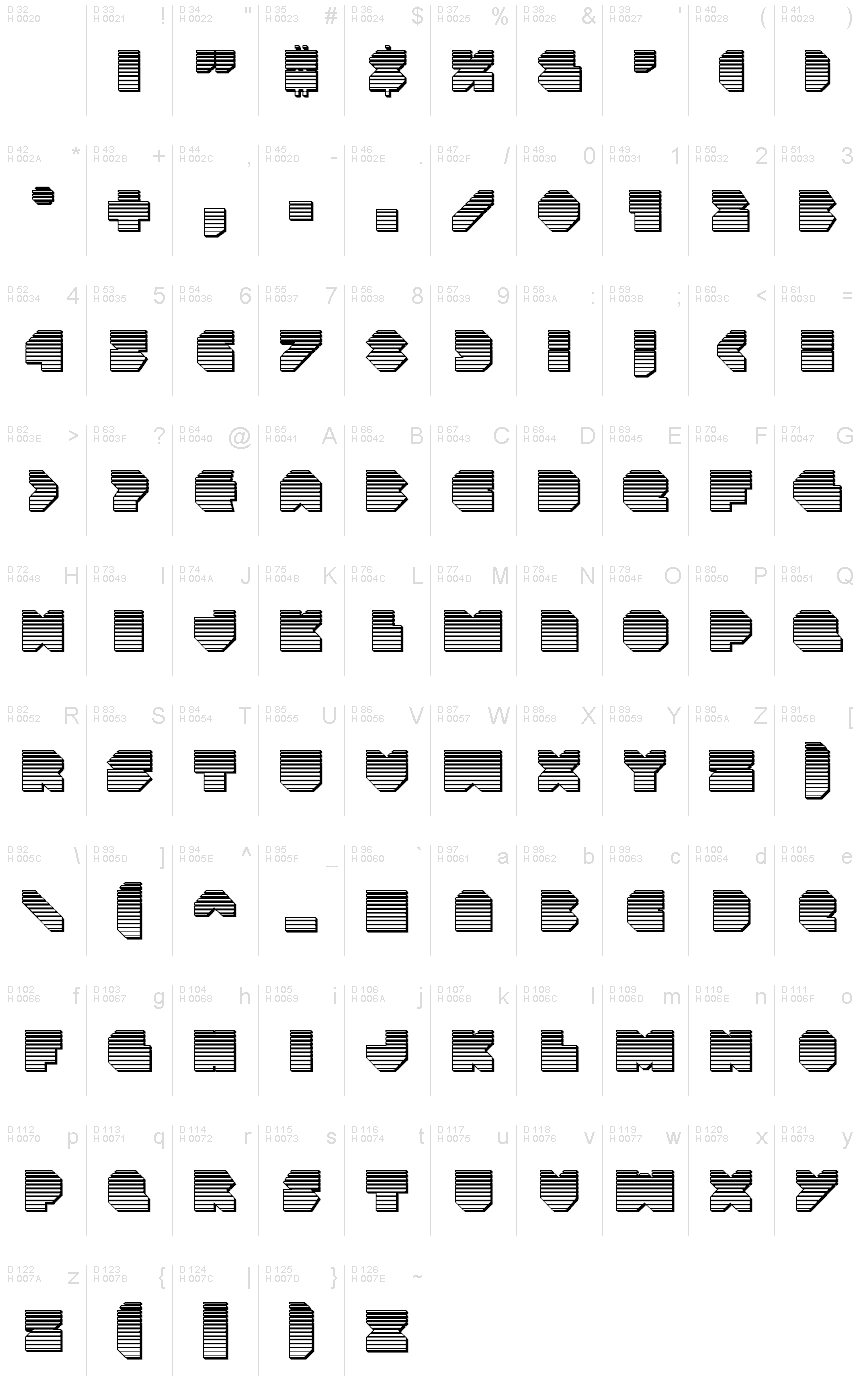
VX Rocket Chrome
VX Rocket Chrome font by Iconian Fonts is a free techno display font with a modern aesthetic. The striped character pattern embodies futuristic vibes while a digital influence results in a technological feel. The VX Rocket family houses this expanded bold typeface known to have unique geometric features.